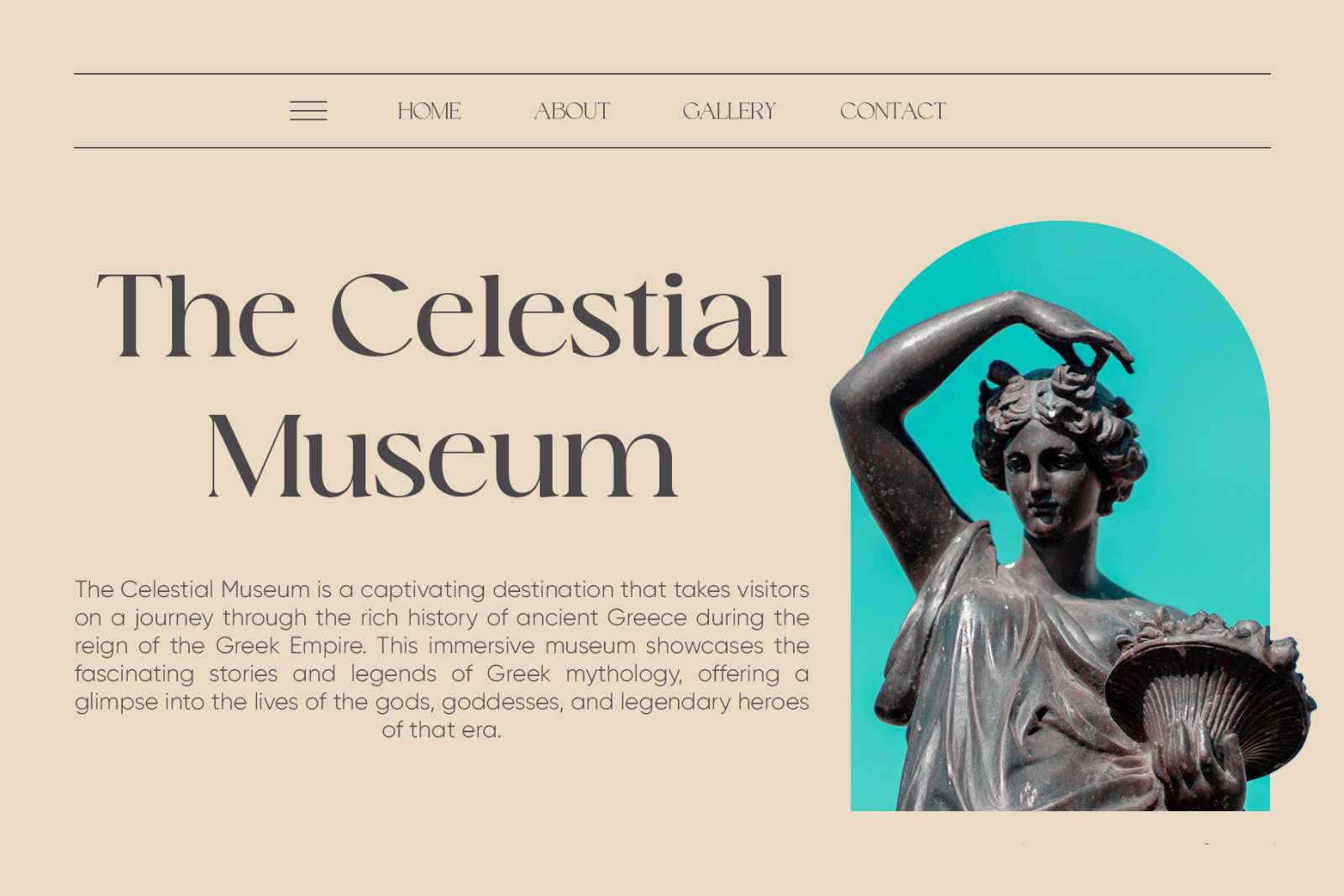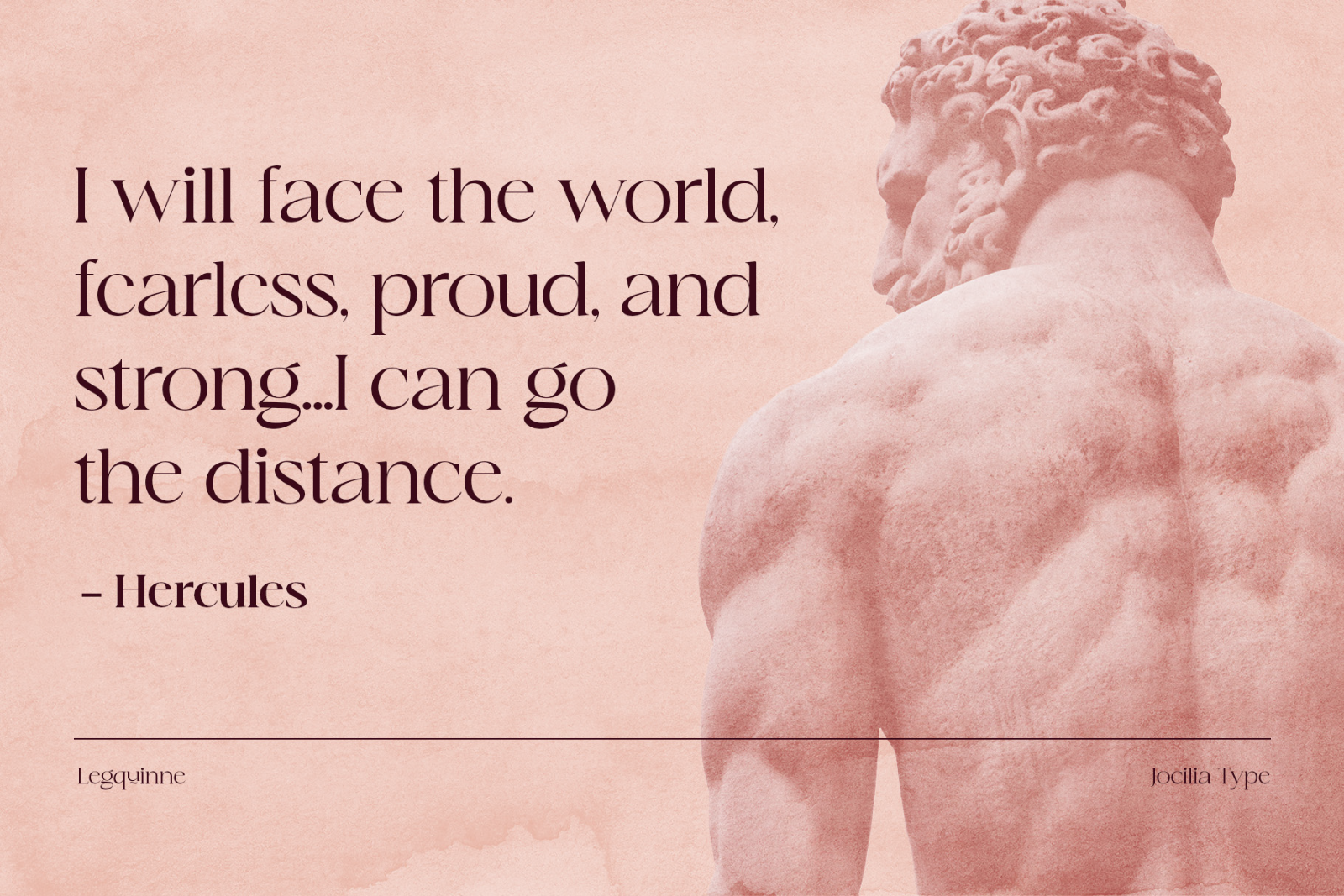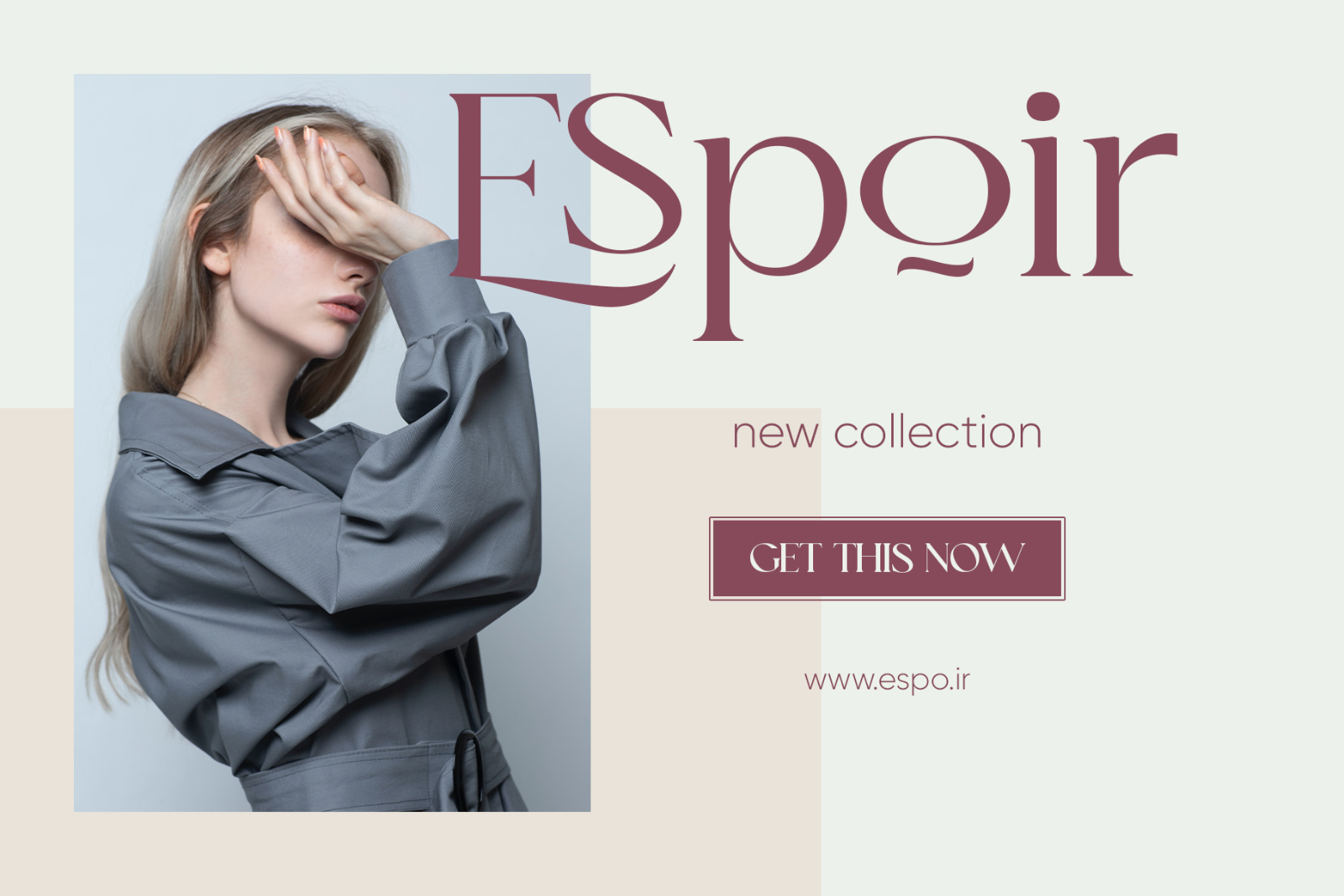
Legquinne is an elegant modern serif typeface designed to bring refined aesthetics and timeless sophistication to every composition. Featuring 8 weights with variable font support, it offers exceptional flexibility for headlines, branding, editorials, and luxury packaging. With 429 carefully crafted glyphs and support for 93 languages, Legquinne delivers expressive versatility, smooth contrast, and graceful details for contemporary design needs.